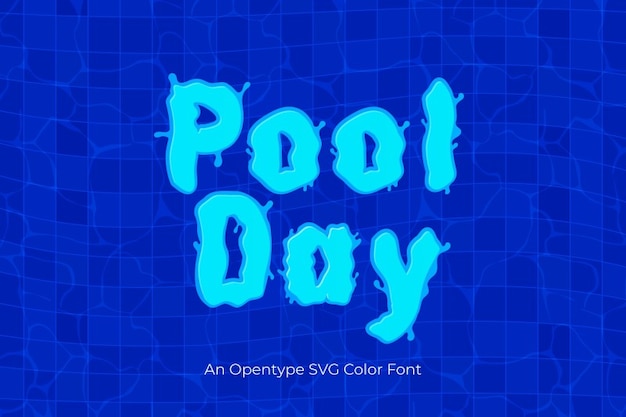
Dive into summer vibes with the Pool Day font! Each letter ripples like a refreshing splash, capturing the essence of carefree holidays by the pool. This typeface brings a cool, aquatic touch to your designs, making every word feel like a dip in crystal-clear waters. Whether you're creating pool party invitations or infusing your summer-themed projects with a splash of fun, Pool Day delivers the sunny, relaxed atmosphere of a perfect pool day. Immerse your text in the joy of summer with this font, where every letter is a poolside memory waiting to be made.